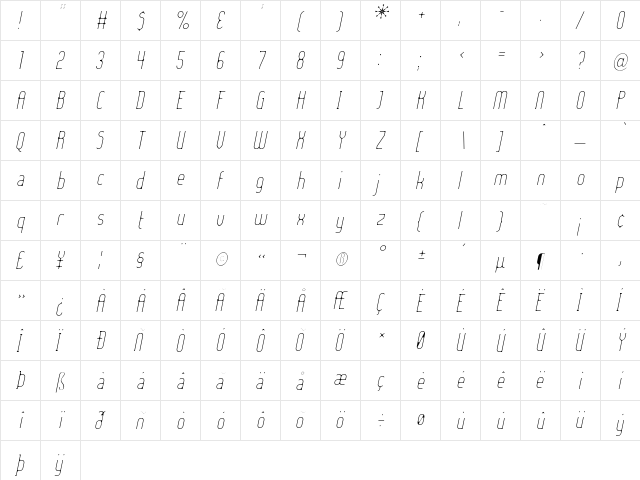
Lady Ice - Extra Light Italic
| Designer | Graham Meade, CybaPee & Apostrophe |
Design Context for Lady Ice - Extra Light Typeface
Lady Ice - Extra Light offers clean, dependable letterforms without strong stylistic allegiance, making it a practical choice for designers who need flexibility. The slanted form adds forward momentum and visual energy. Its slender proportions lend an understated elegance to any composition.